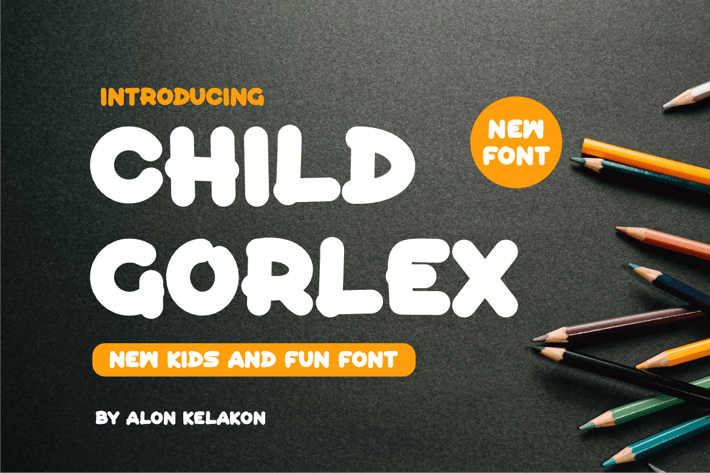
Child Gorlex - Kids Font
Child Gorlex - Kids Font is unique . Ready to use for your design like labeling, movie sceen, poster, movie title, gigs, album covers, logos, and much more.